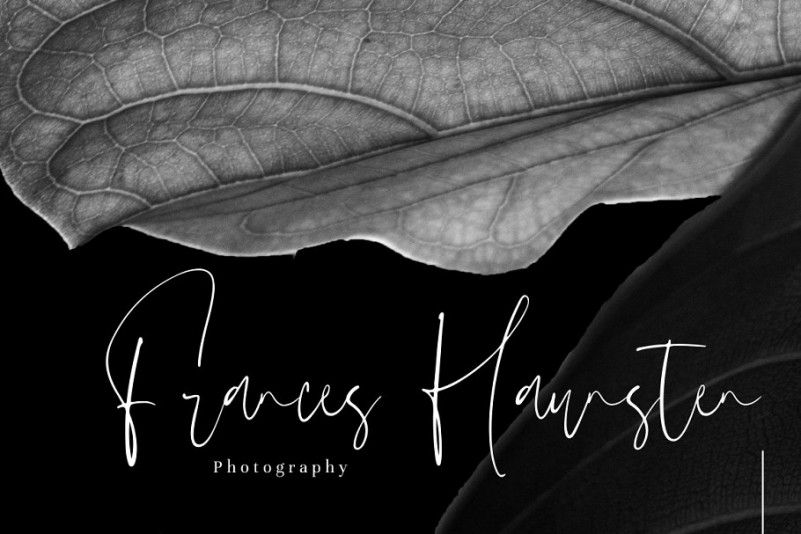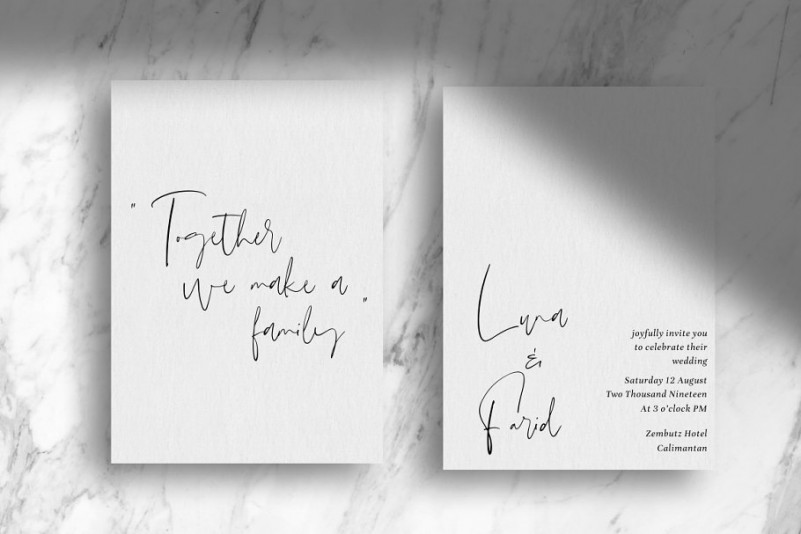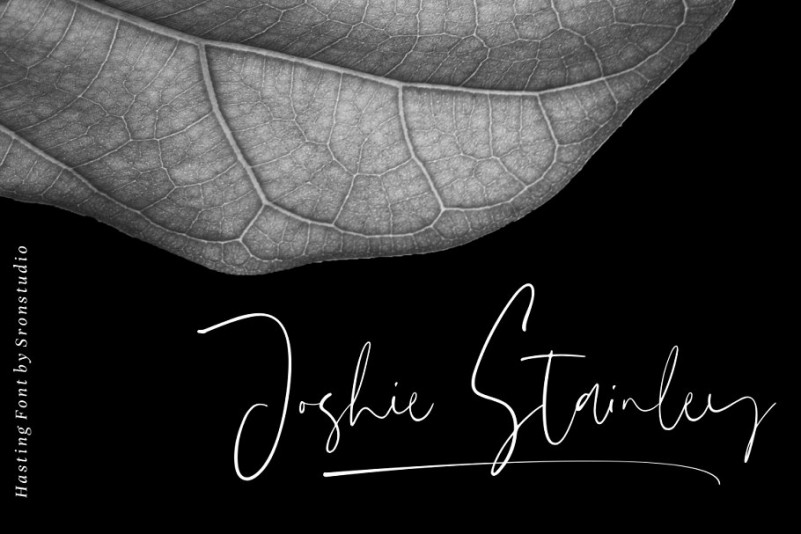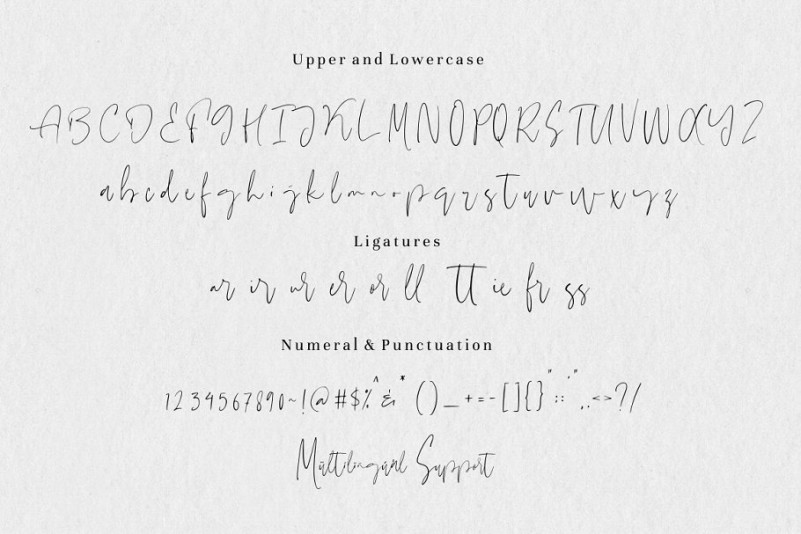
Hasting Script Font
Hasting Script – Demo Font
This free font package is a new signature font series. It’s a stylish, elegant, casual and modern signature font. Introducing Hasting Font. It’s a combination of smooth paths and strong strokes that gives you a unique casual handwriting effect. Hasting Script is a modern font perfect for branding, invitation, stationery, wedding designs, social media posts, advertisements, product packaging, product designs, label, photography, watermark, special events or anything.